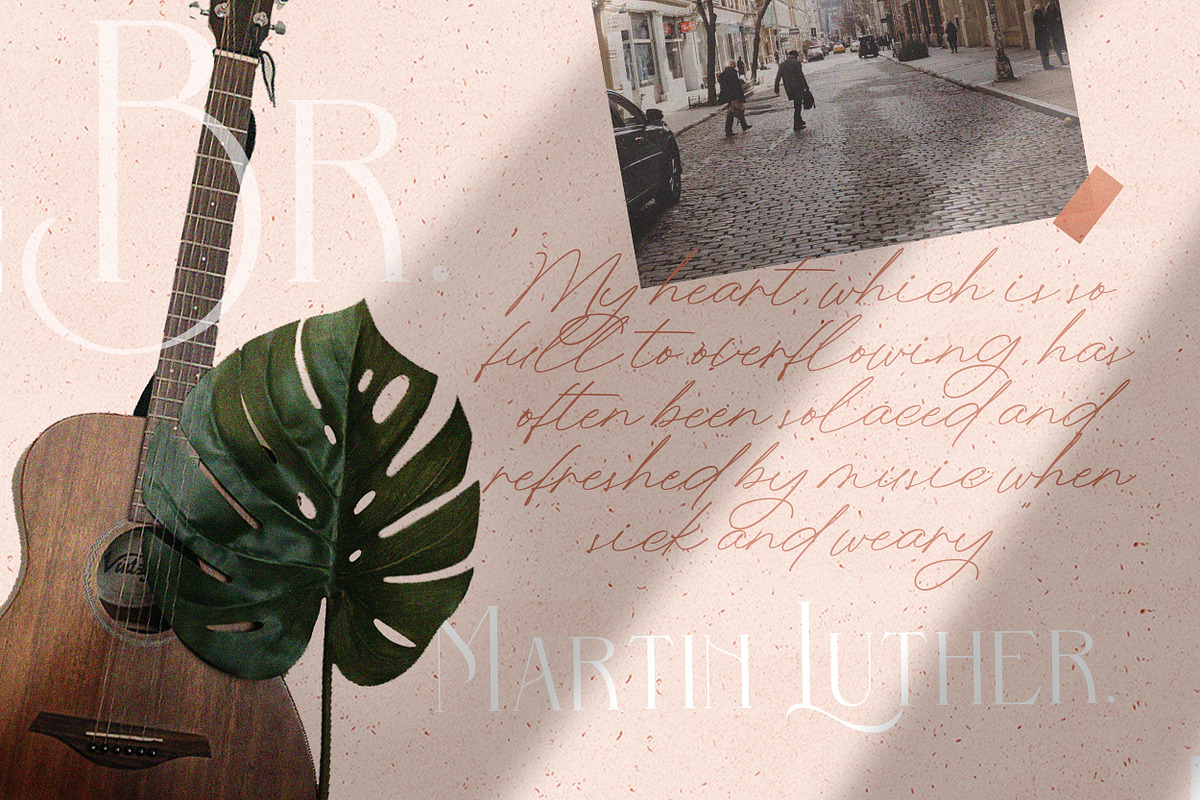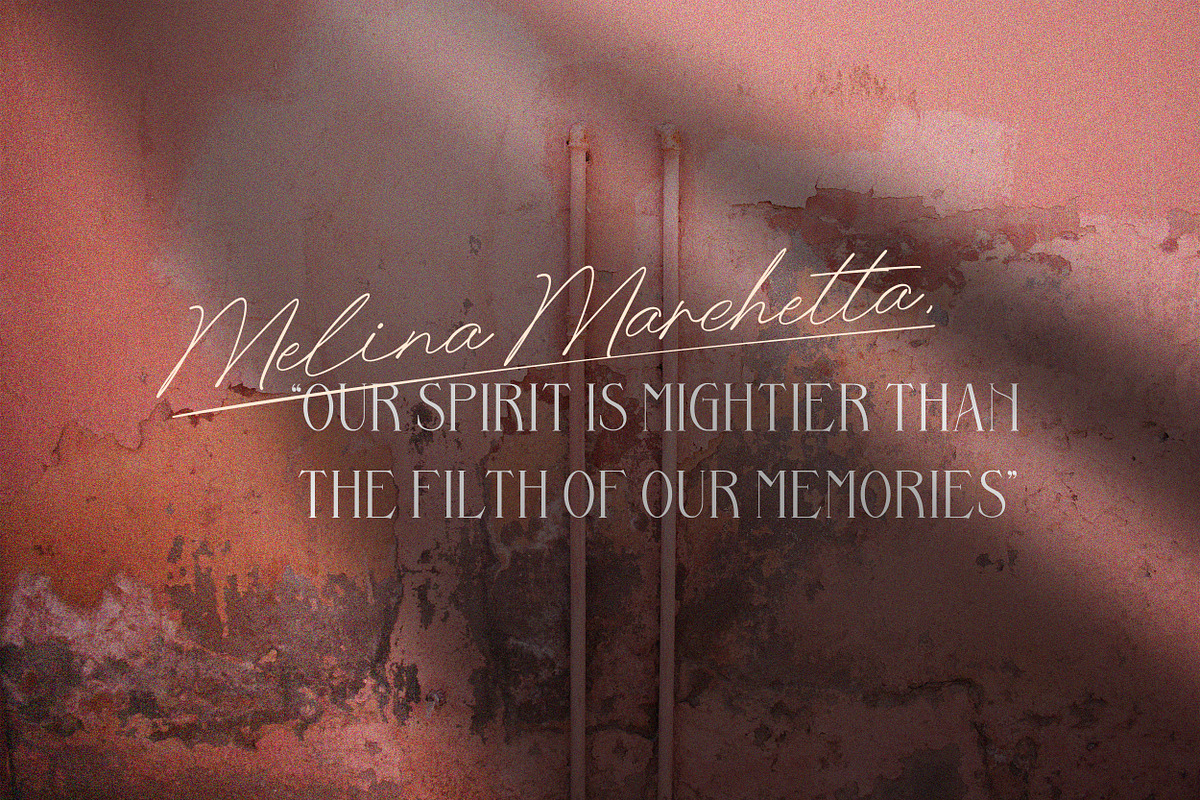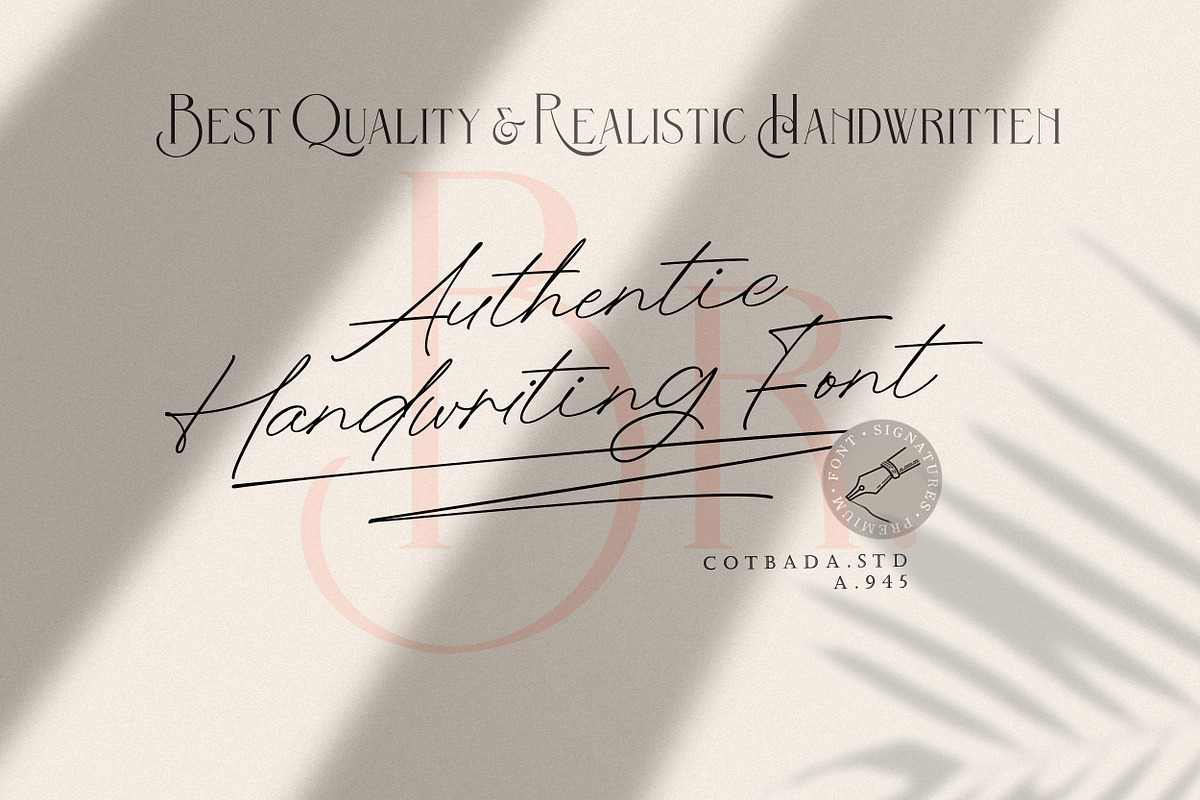
Bernitha Angelica Berkeley + BONUS
Say hello to summer with the beautiful, Bernitha Angelica Berkeley duo font! hand-lettered script font is perfect for styling logos, stationery, social media, websites and so much more!
Bernitha Angelica Berkeley duo font offers beautiful typographic harmony for a diversity of design projects.
Bernitha Angelica Berkeley was built with OpenType features and includes beginning and ending swashes, numbers, punctuation, alternates, ligatures and it also supports other languages :)